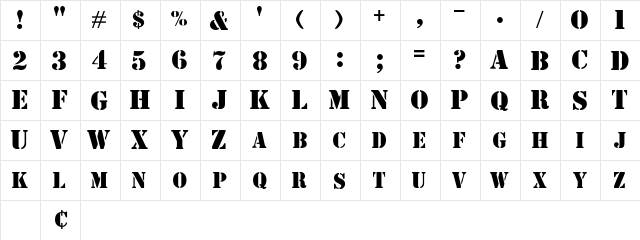
RoadieSSK Bold Font Preview
RoadieSSK Bold
Design Context for RoadieSSK Typeface
RoadieSSK is a composed and adaptable typeface that performs quietly and consistently across a wide range of design contexts. Its bold stroke weight gives it real presence on the page.
Pro Tip: Use RoadieSSK in both headline and body roles to test its range before committing to a single application.